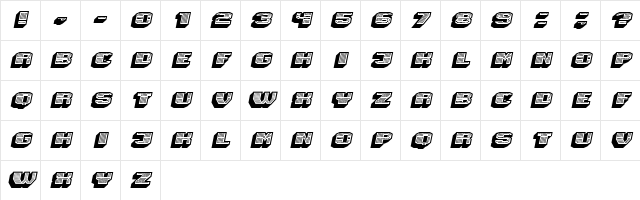
Complete Magia 3D Hollow-Neon Italic glyph index. Displaying only characters natively supported by Magia 3D Hollow-Neon Italic font.
Magia has a distinctly futuristic character, with geometric precision and clean angles that feel at home in technology, gaming, and sci-fi contexts. The slanted form adds forward momentum and visual energy.